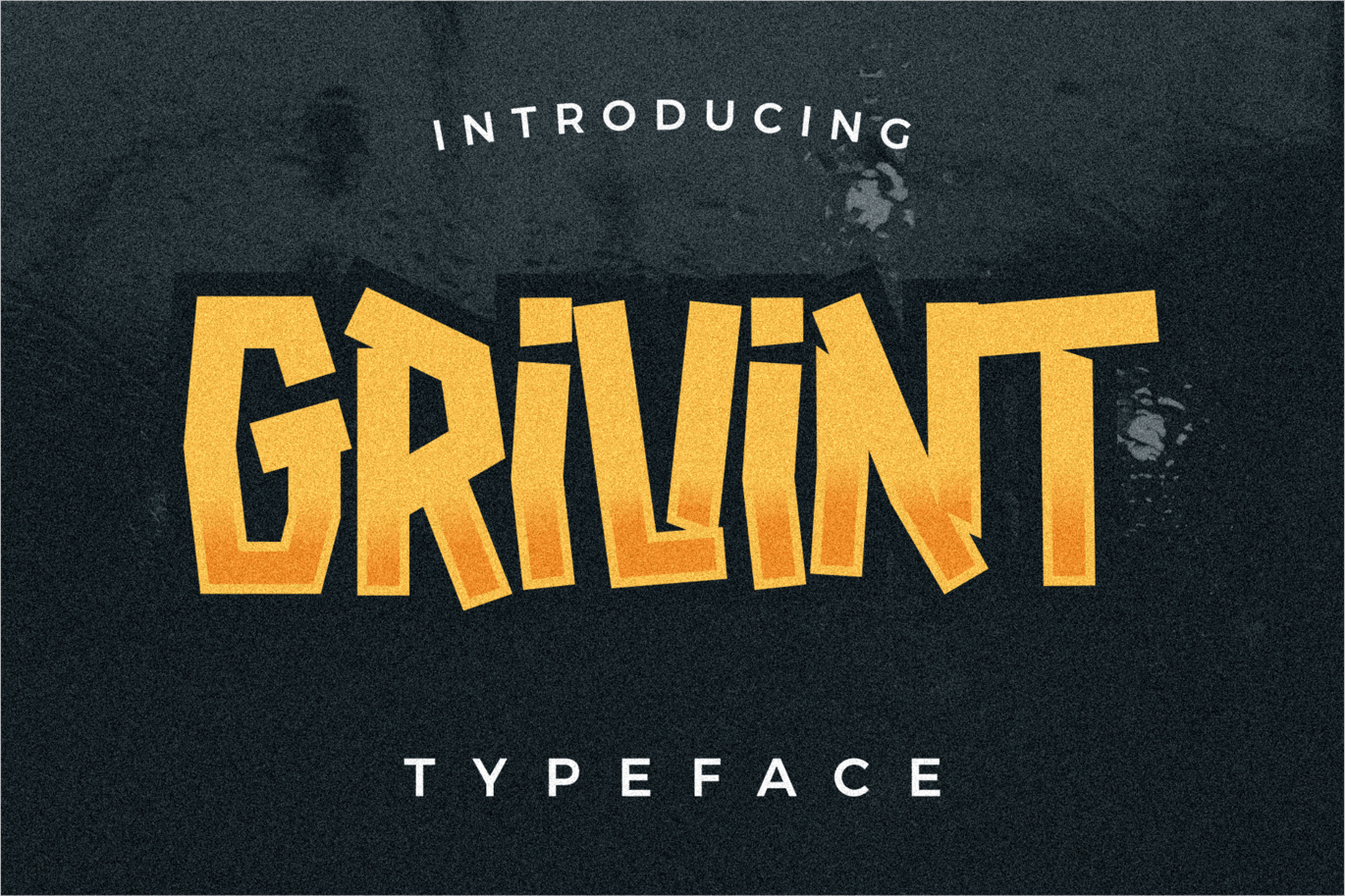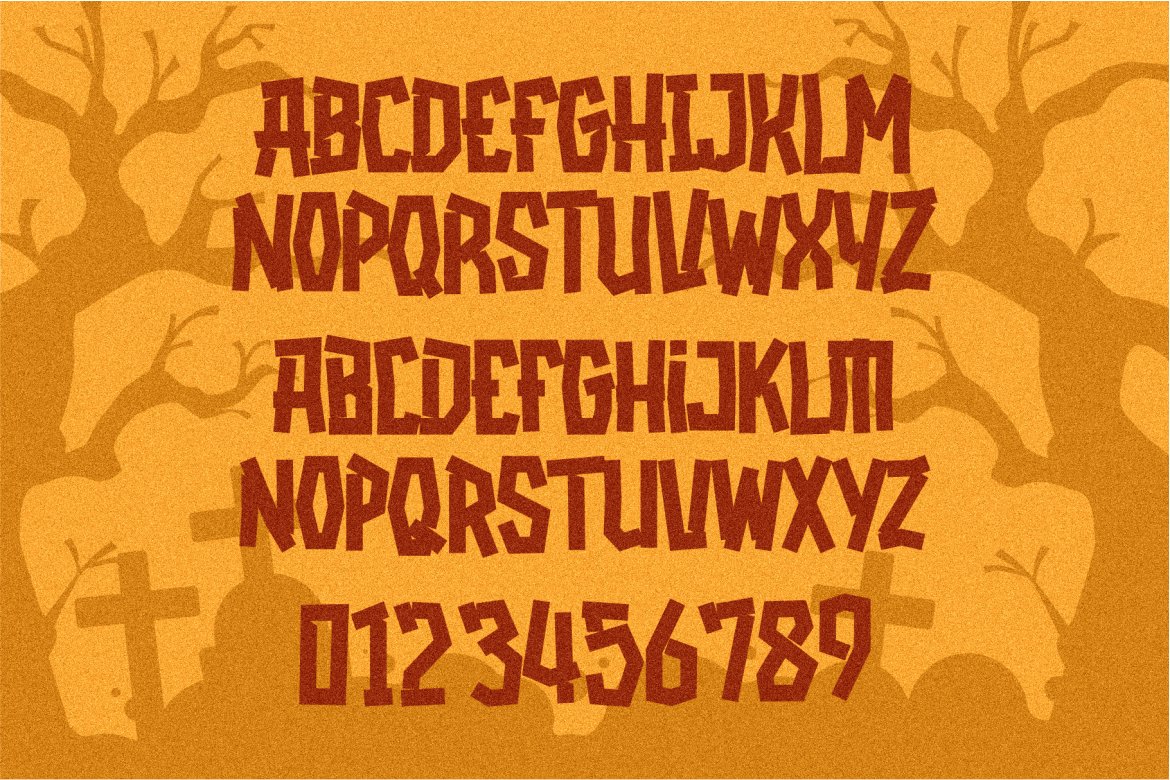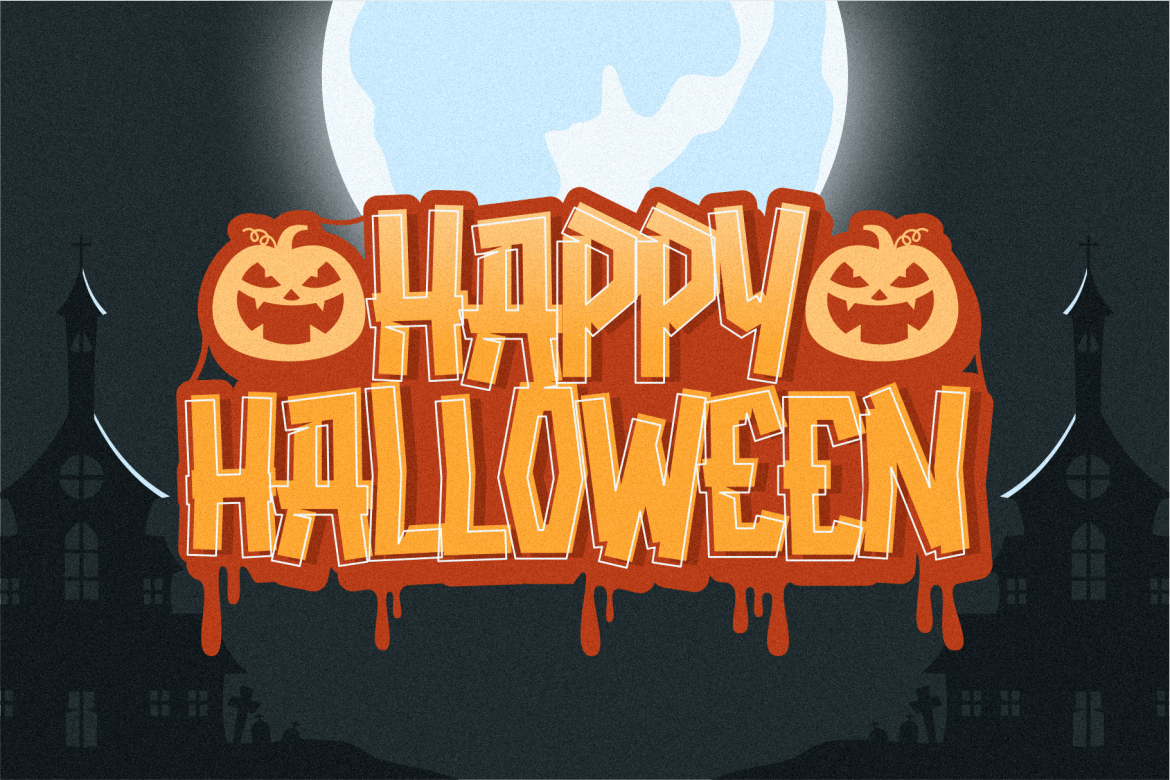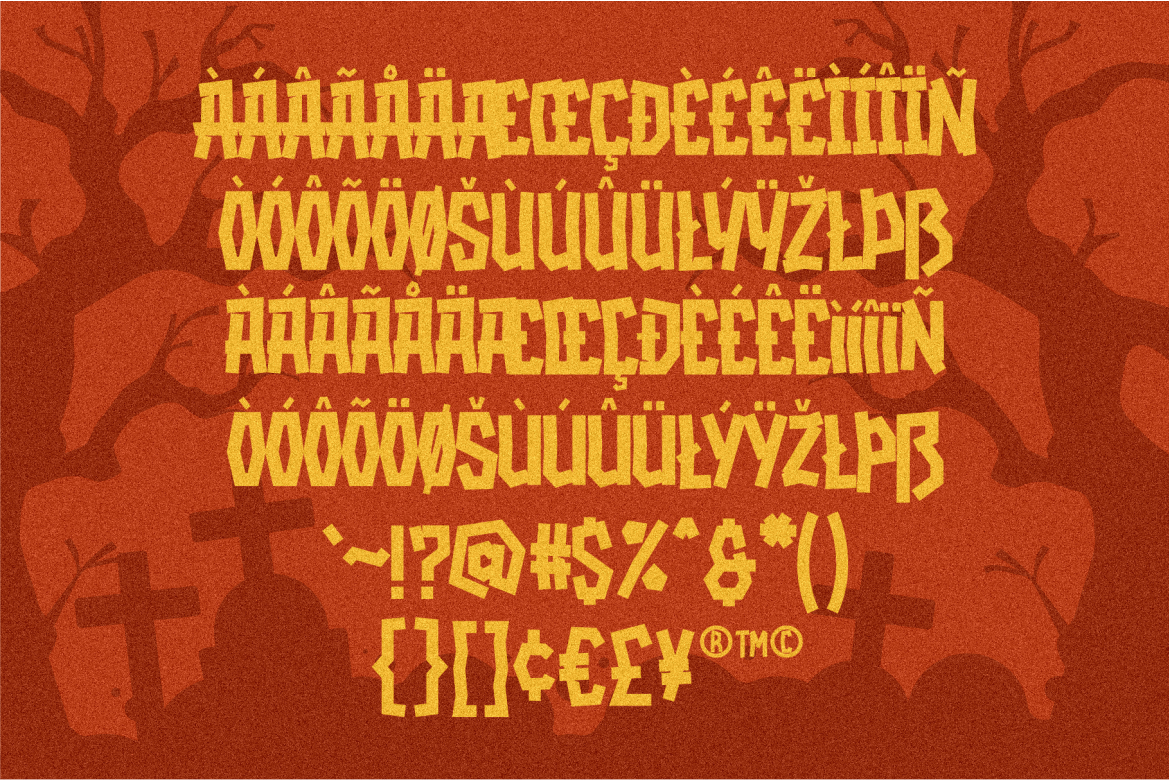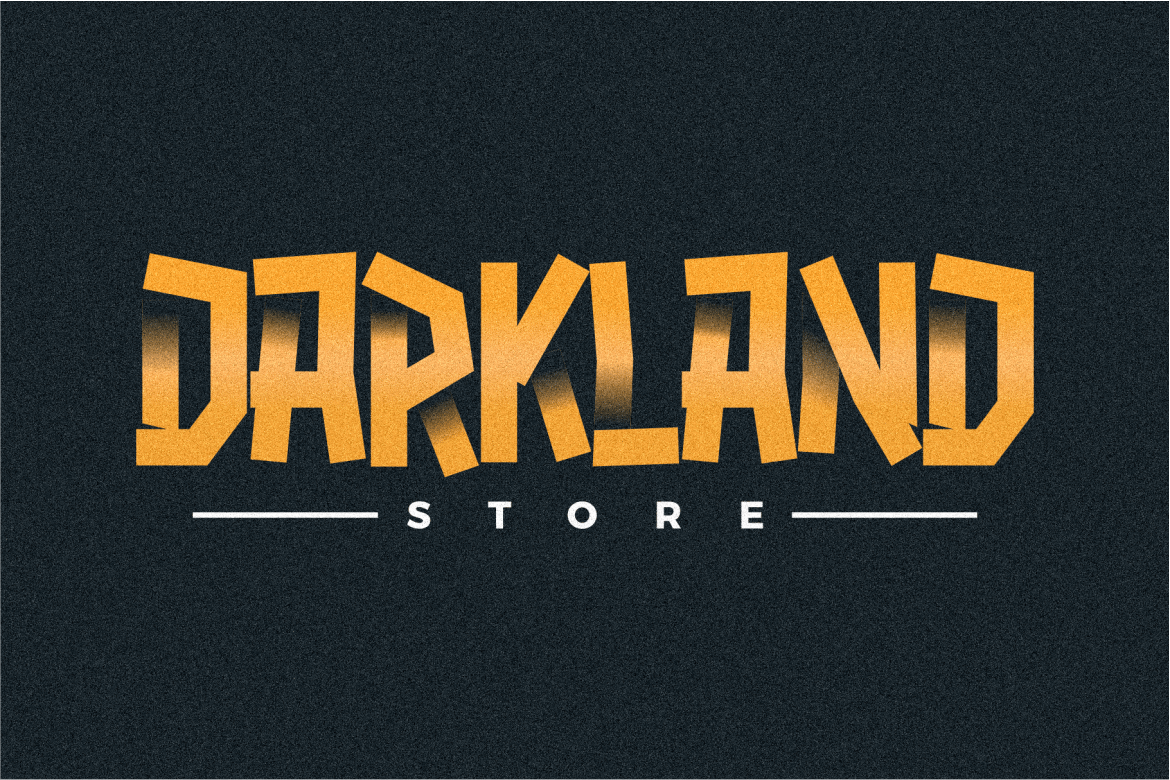
Grivint Typeface
GRIVINT is a masculine font suitable for designs related to music, bands, apparel, horror poster, clothing lines or others, can be applied as posters, postcards, logos etc.
*Uppercase and Lowercase
*Number
*Punctuation
*Multilingual Support